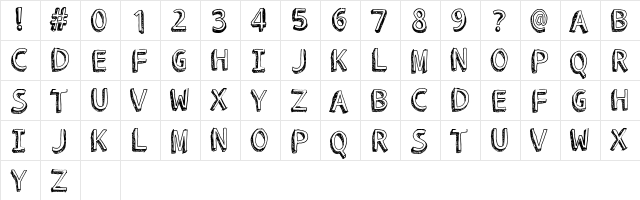
ROCKET TO MARS Regular
Design Context for ROCKET TO MARS Typeface
ROCKET TO MARS is a composed and adaptable typeface that performs quietly and consistently across a wide range of design contexts.